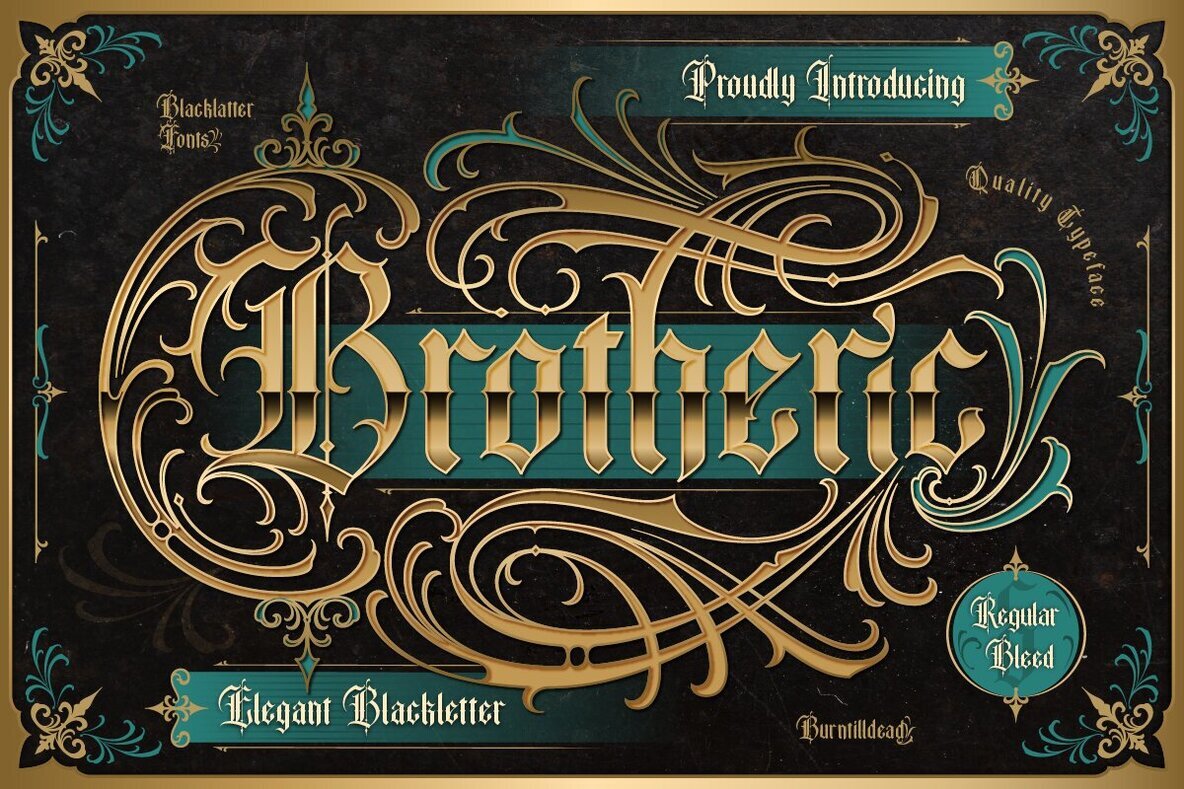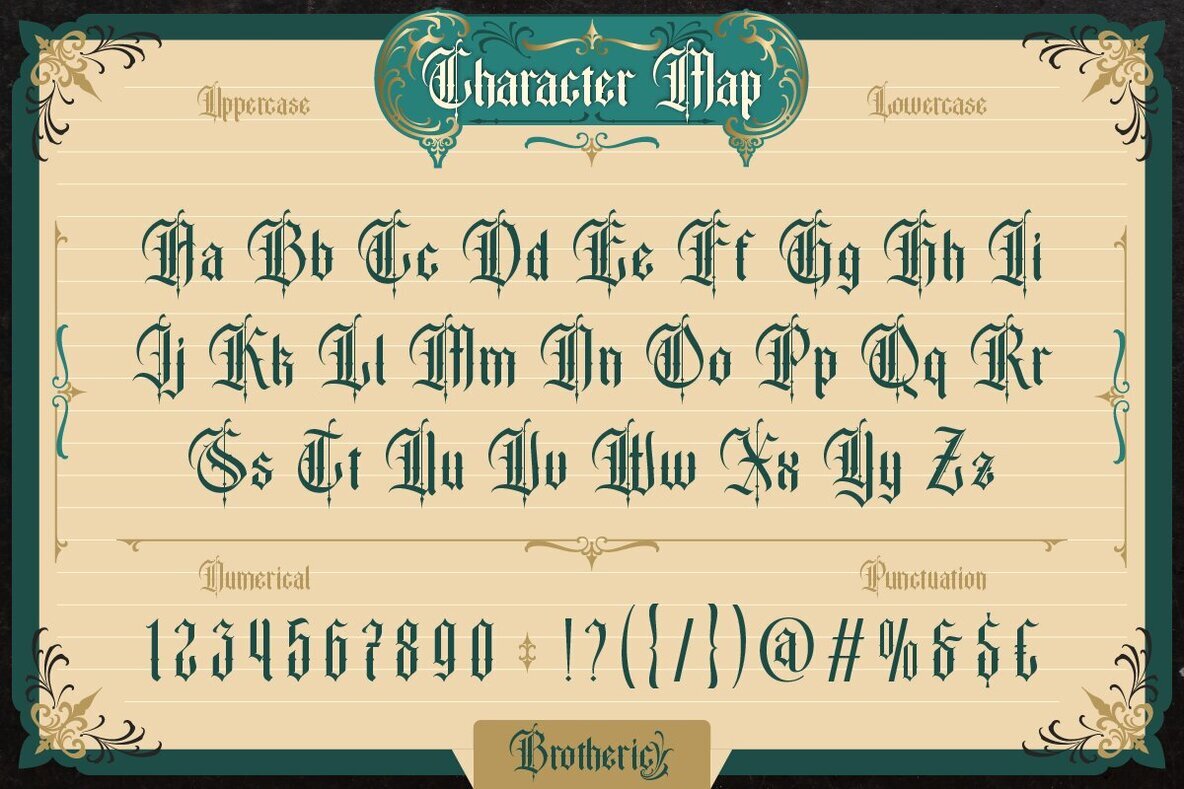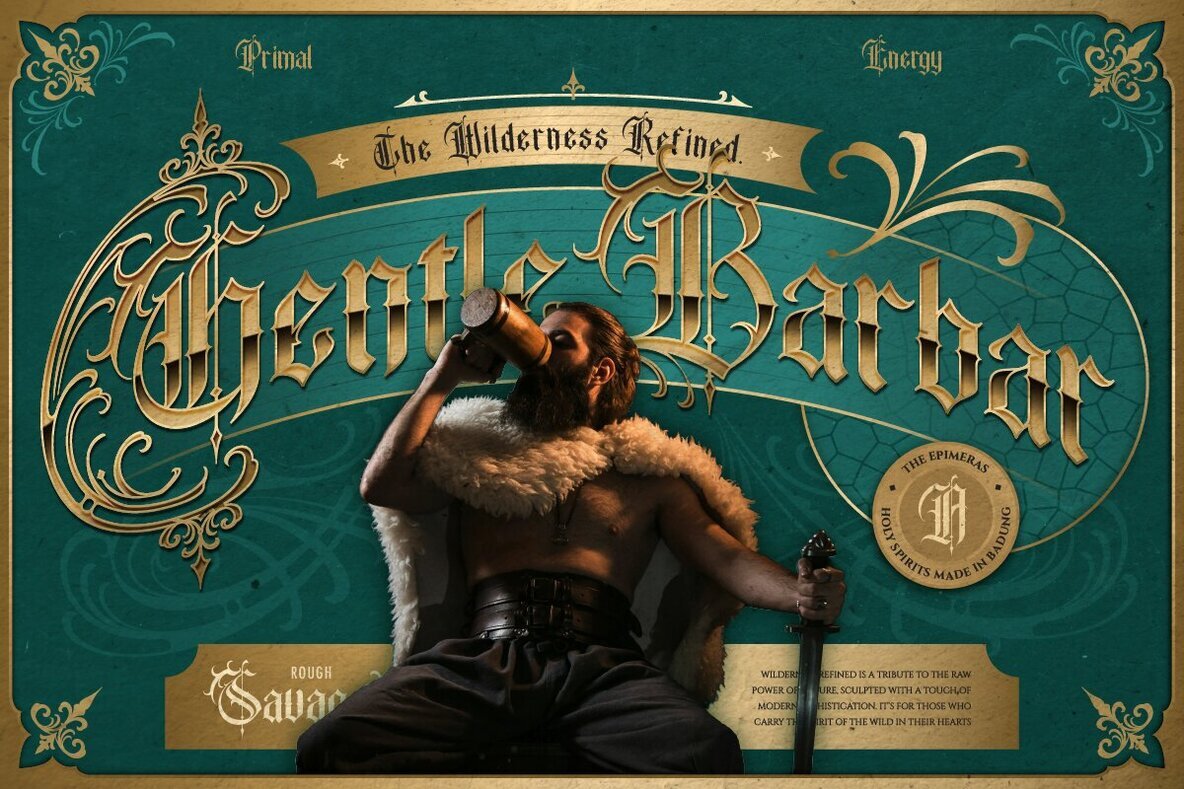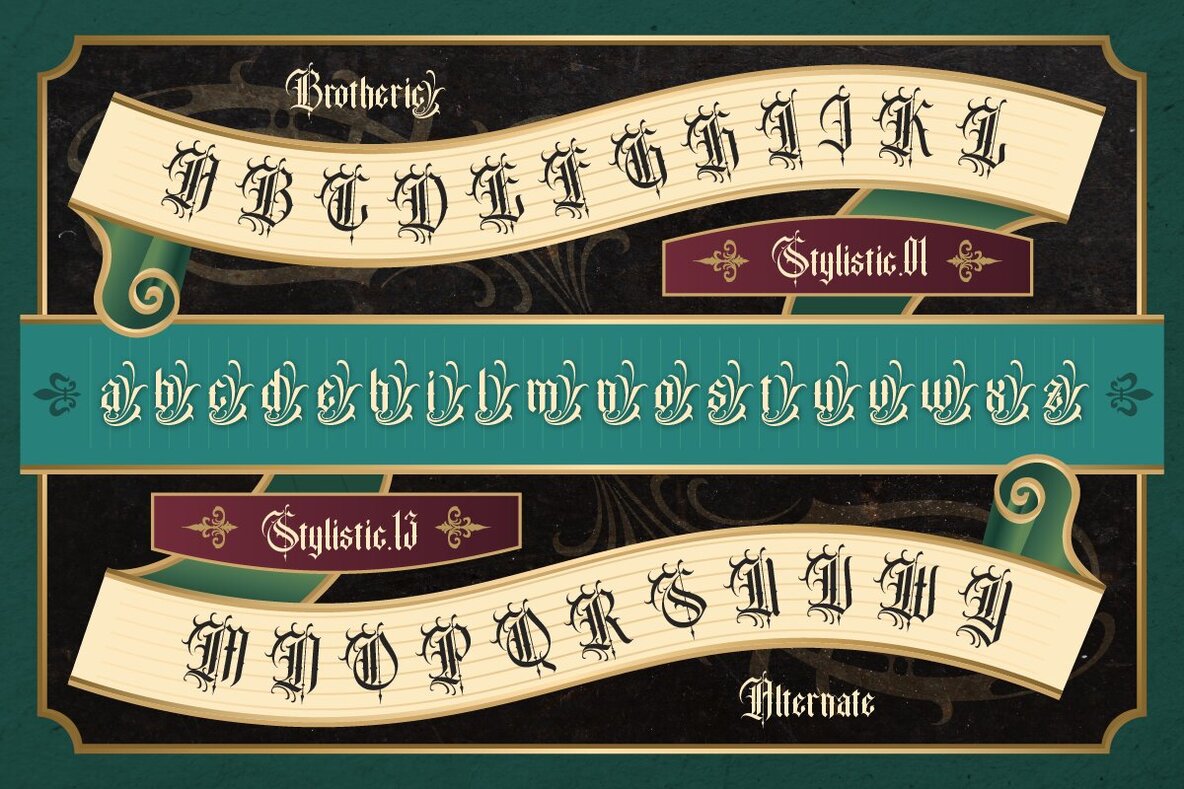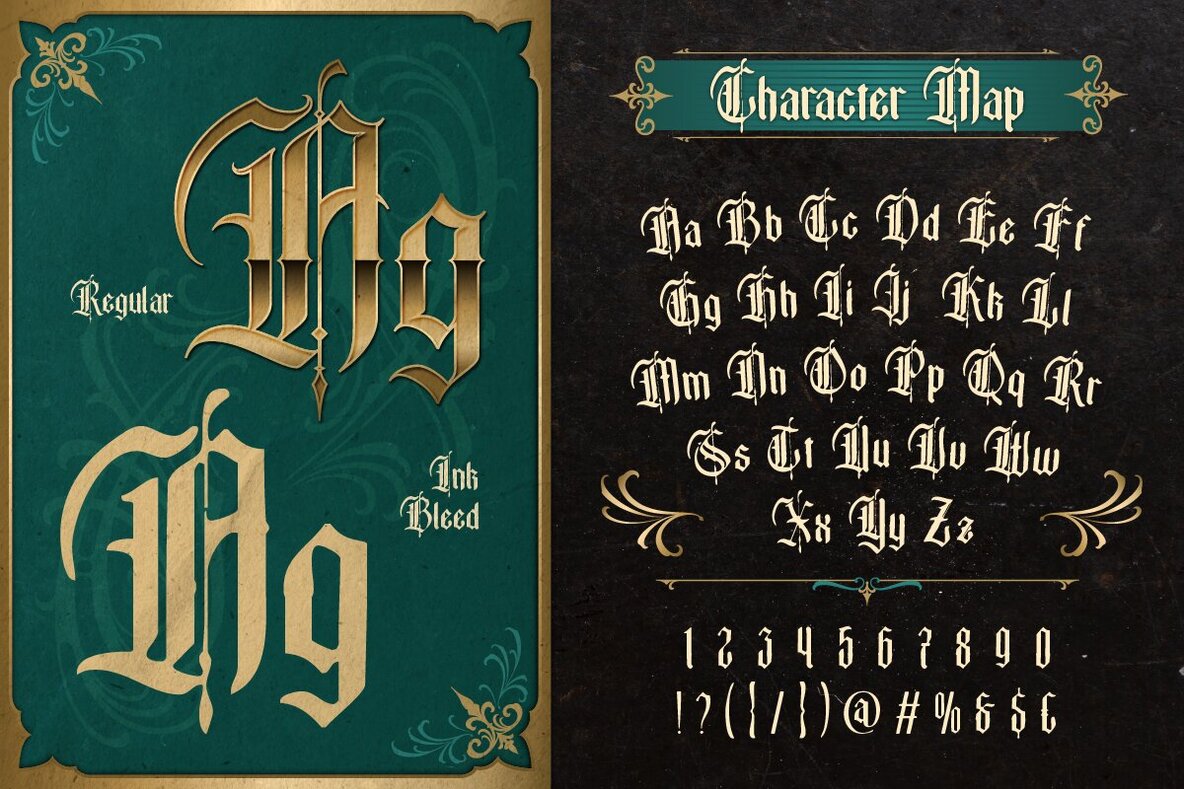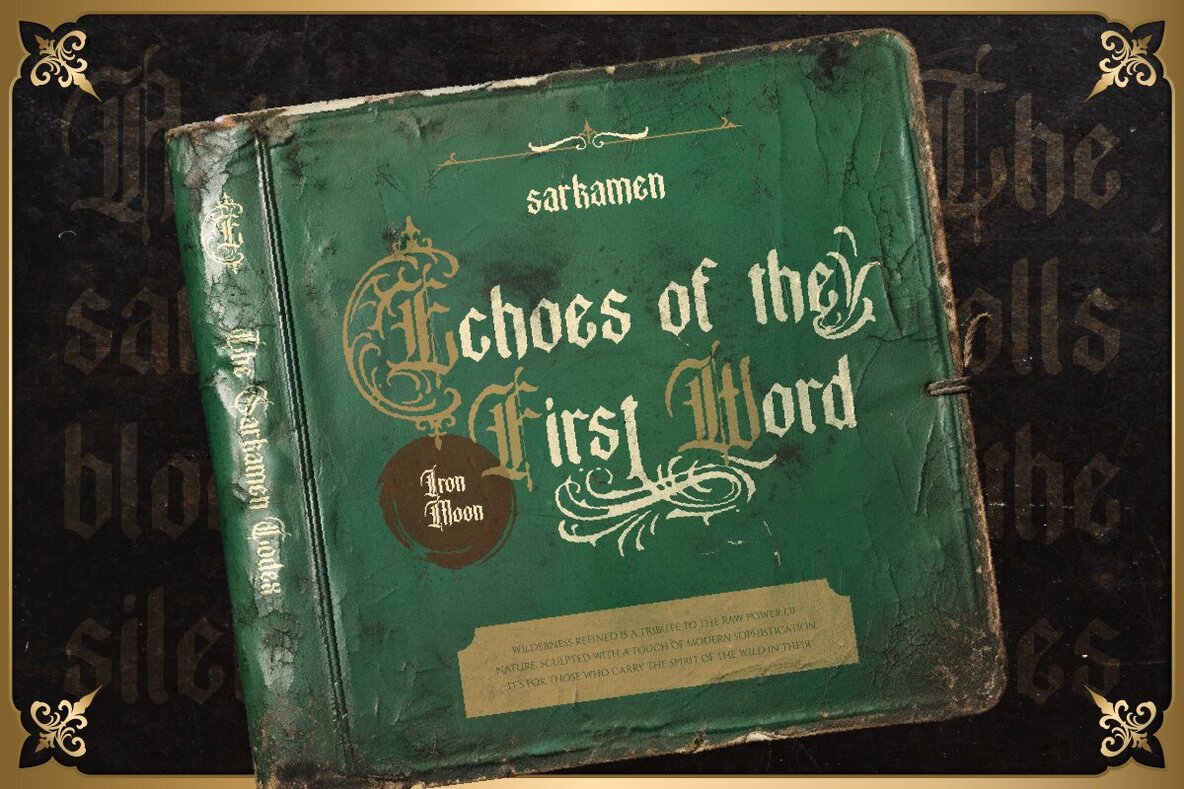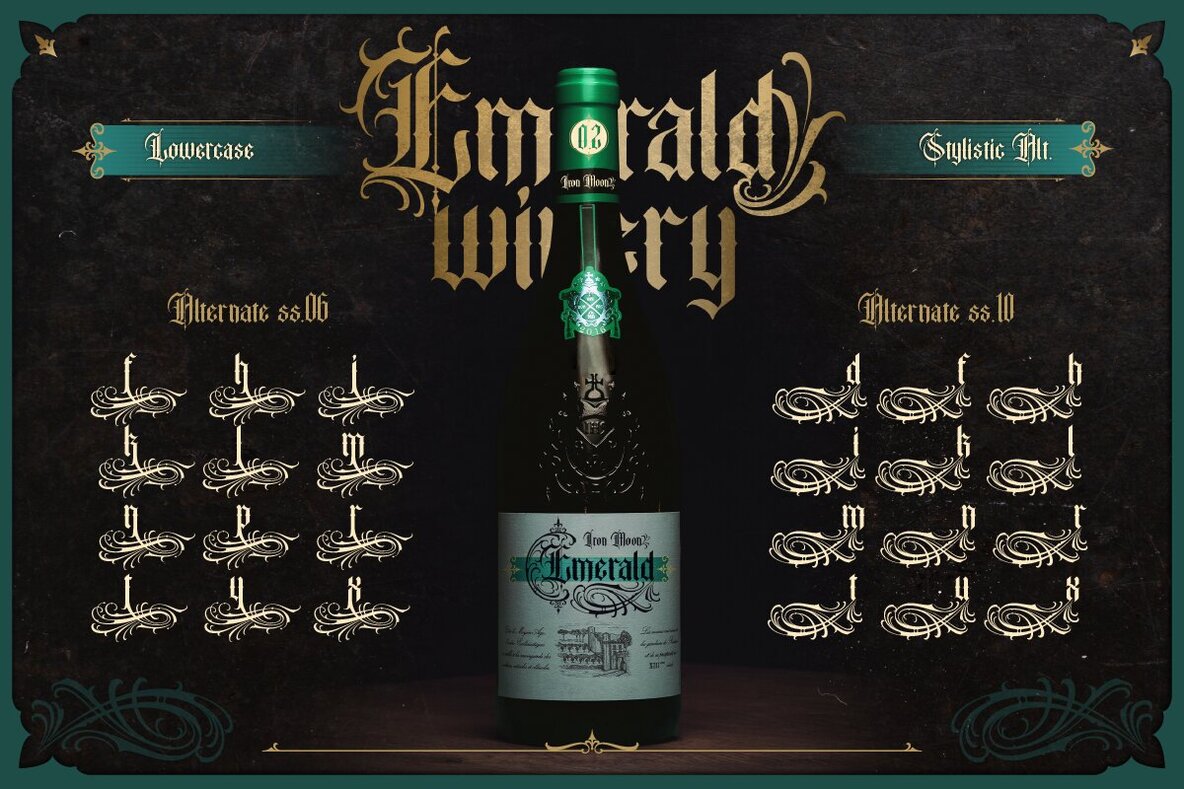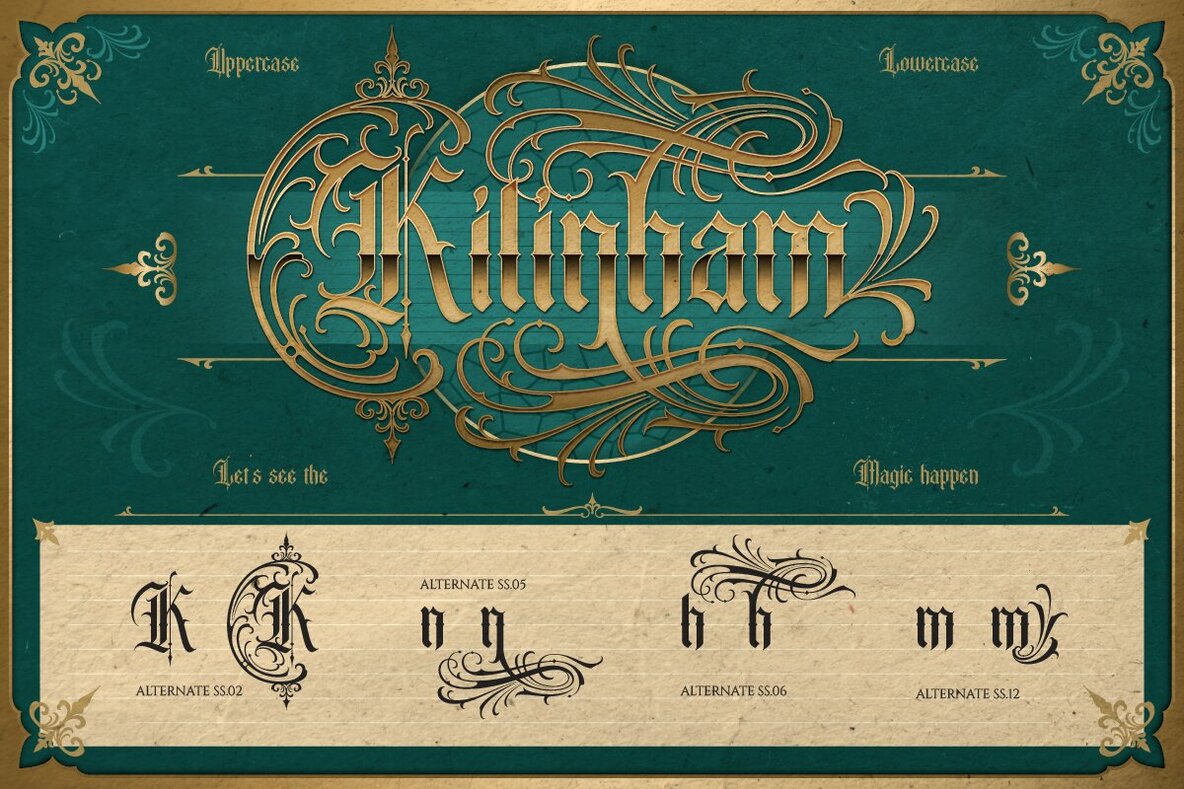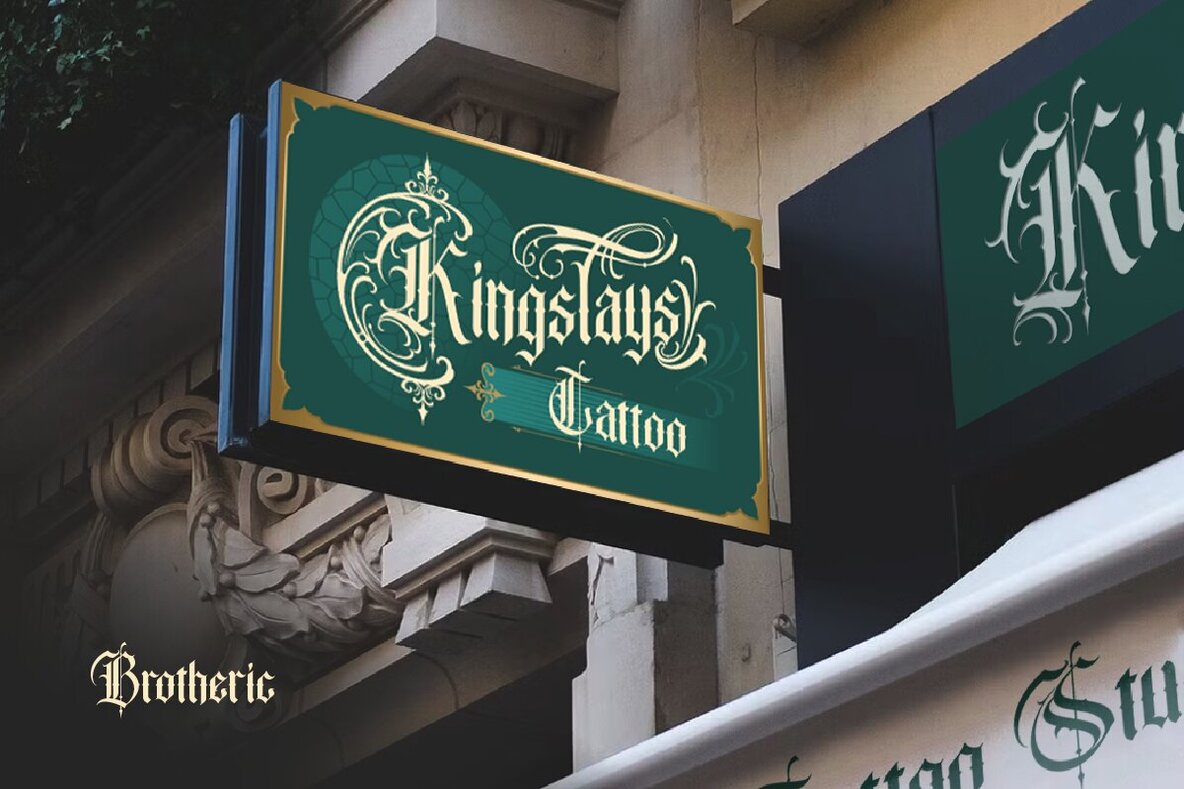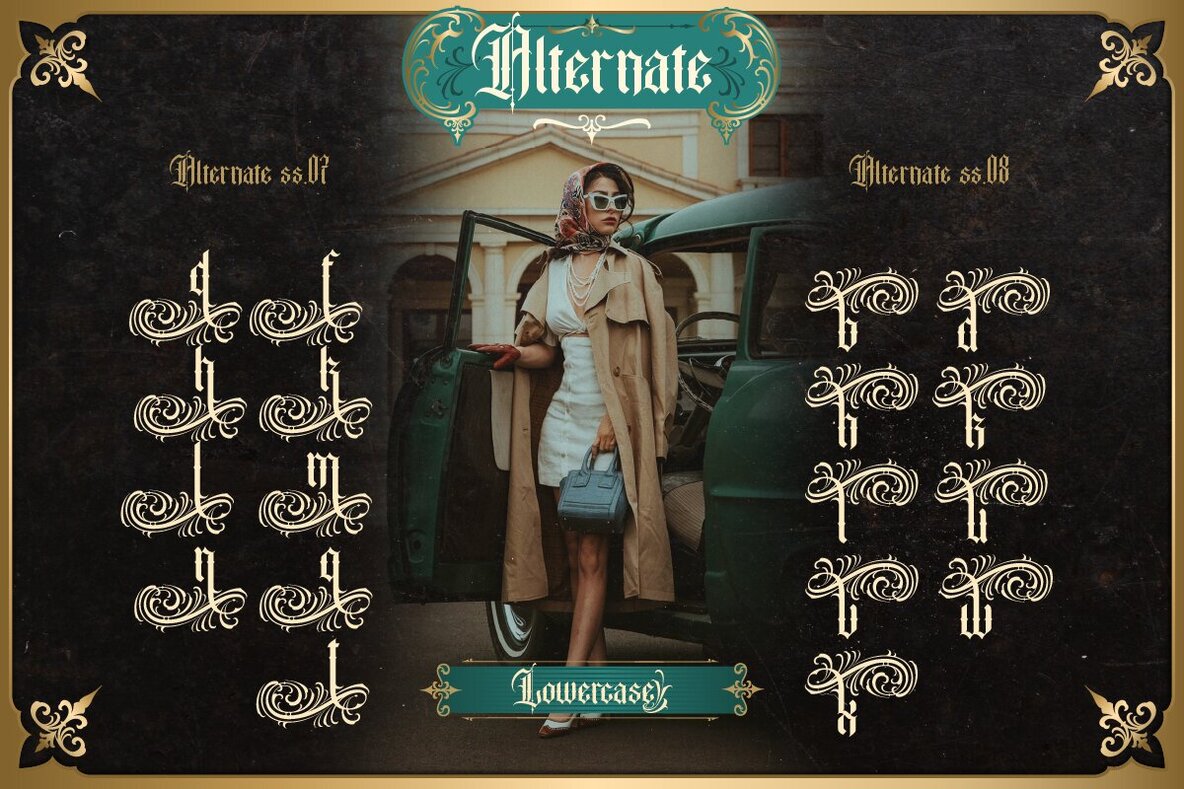
Brotheric Font
brotheric Regular
brotheric Ink Bleed
Introducing Brotheric, a striking and ornamental blackletter typeface that gracefully fuses classic European influence with a modern editorial flair. Crafted with robust letterforms and precise angles, it maintains readability across extensive texts. With its majestic and enchanting character, Brotheric is an ideal choice for designs with a "luxury meets vintage" appeal. While rooted in the gothic font family, its polished style ensures suitability for numerous design applications.Brotheric: A Majestic Blackletter Font